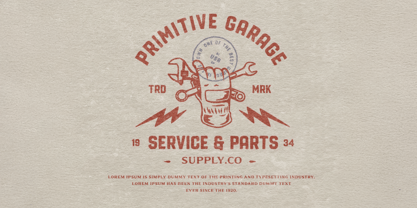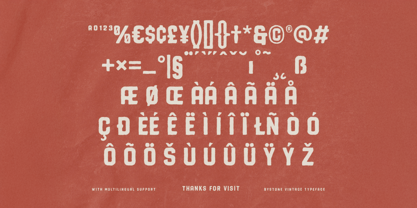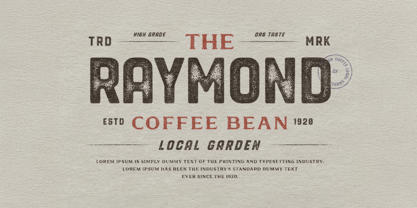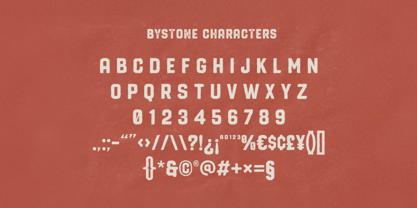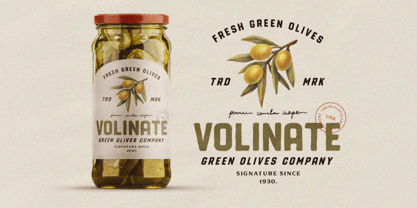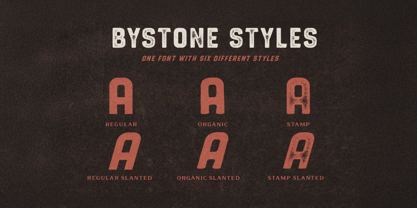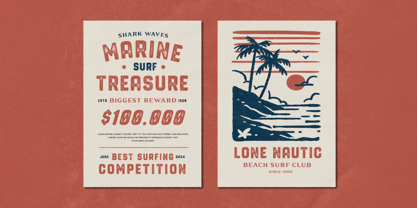
Bystone
by Illustraly
The Bystone Font Family was designed by Faiz Alqurni and published by Illustraly. Bystone contains 6 styles and family package options. More about this family
Bystone is a vintage display sans serif with a classic yet natural character. Designed to bring authentic personality and timeless style to your creative projects, this typeface is perfect for bold branding, standout logos, editorial headlines, and social media graphics that need a vintage-inspired touch.
The Regular style offers clean, balanced shapes with a classic presence. The Organic style brings in subtle handcrafted details for a more natural look, while the Stamp style gives a rugged, weathered feel to add character and depth. The Slant style creates gentle motion and an expressive vibe, giving you the flexibility to match different moods and applications.
From retro posters to heritage-inspired packaging and stylish social media posts, Bystone is made for creators who want their typography to stand out with confident, vintage charm.
Features:
• Vintage display sans serif with natural character
• Four styles: Regular • Organic • Stamp • Slant
• Numerals & punctuation
Let your words make a bold, classic statement with Bystone.